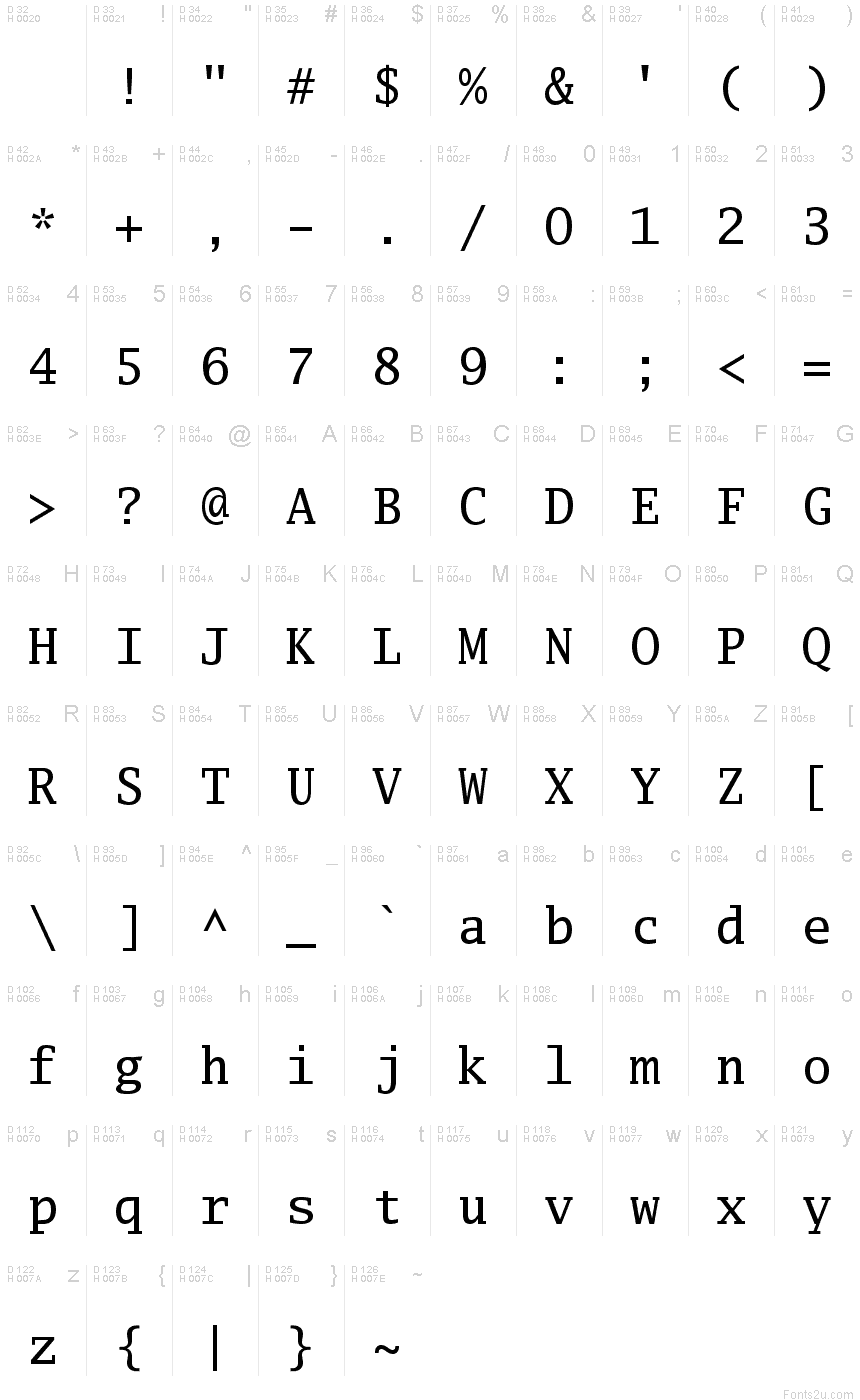
Luxi Mono by Bigelow & Holmes is a free monospaced slab serif with upright proportions, sturdy serifs, and clear typewriter-like construction. The even strokes look practical and firmly mechanical.
Publishing is a particularly good setting for this design, especially in technical manuals, code examples, and editorial sidebars, where its fixed-width pattern gives dense information an orderly texture. The same utilitarian lettering can suit software branding and retro computing graphics, appealing strongly to designers and readers who associate monospaced type with terminals, documentation, and early digital culture.